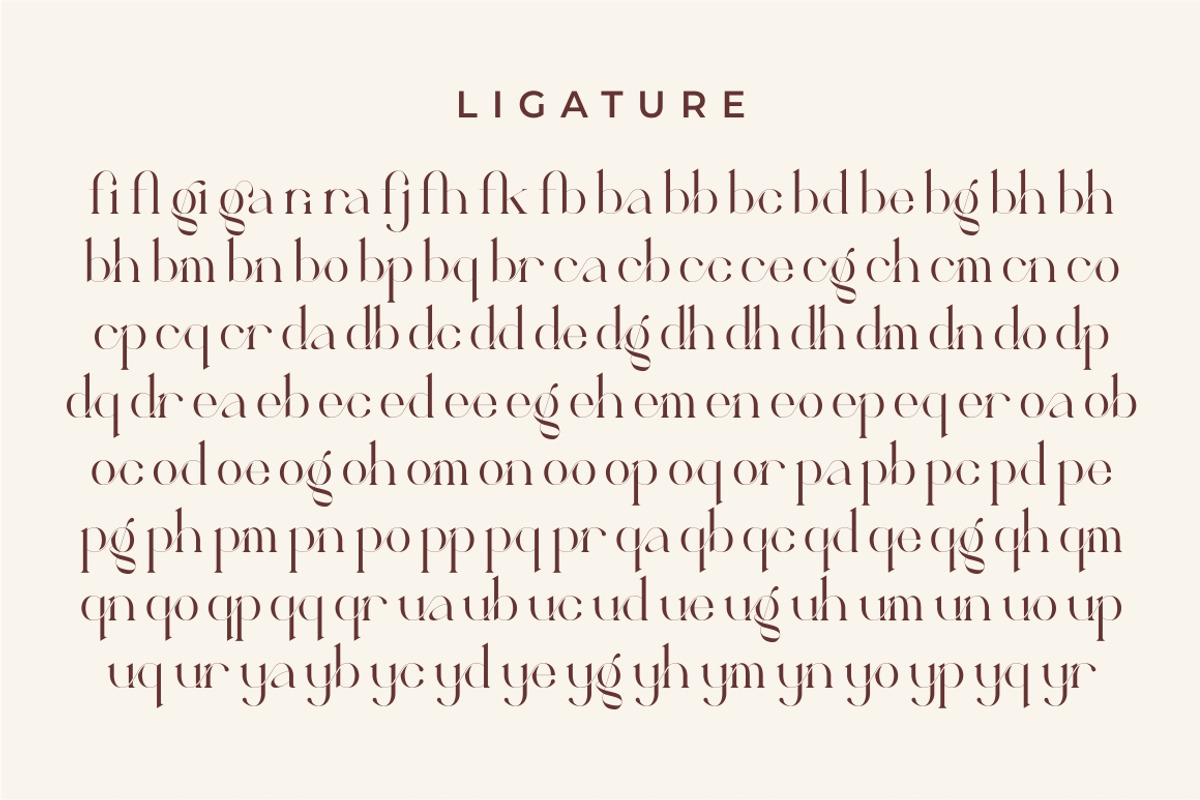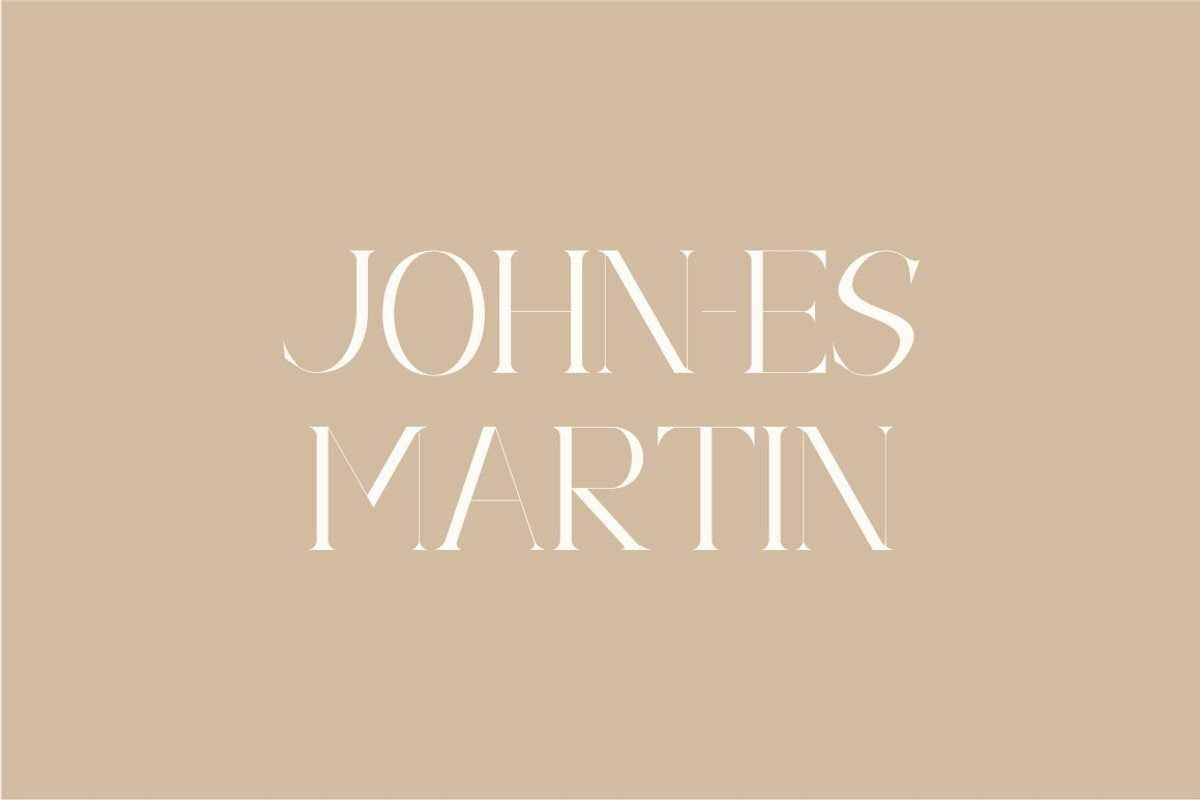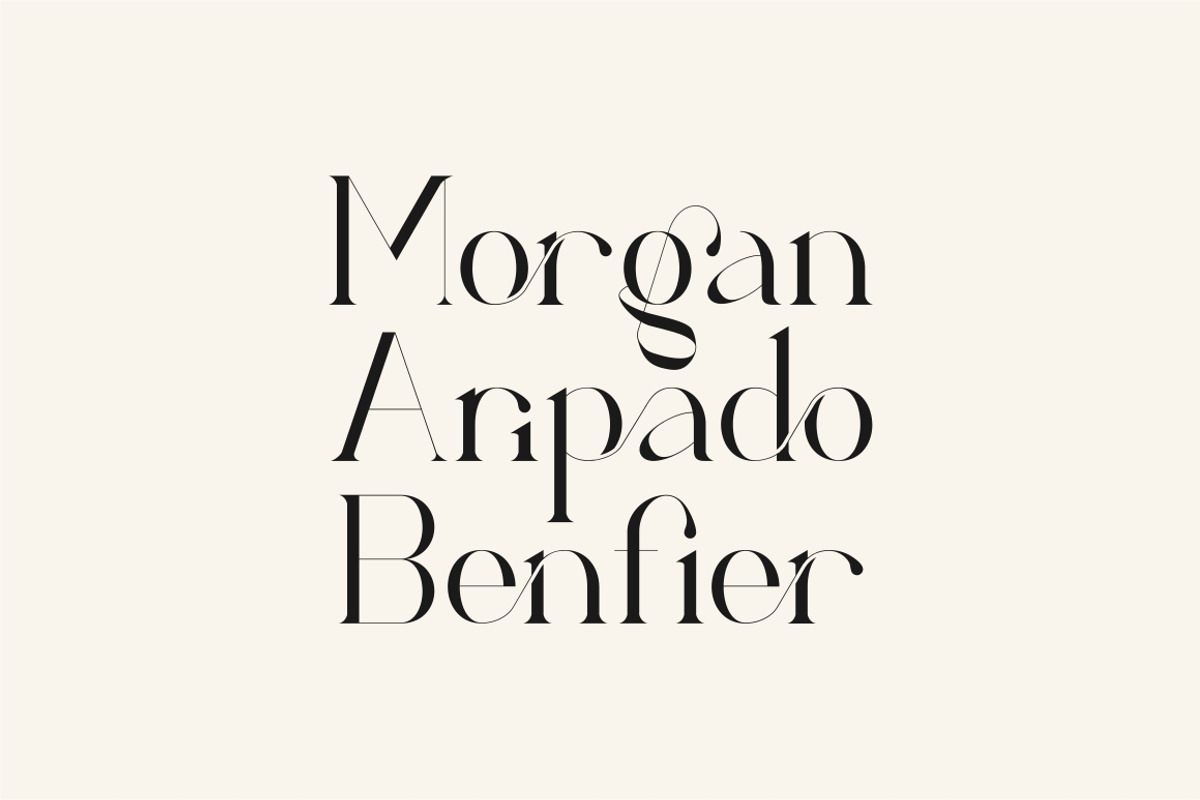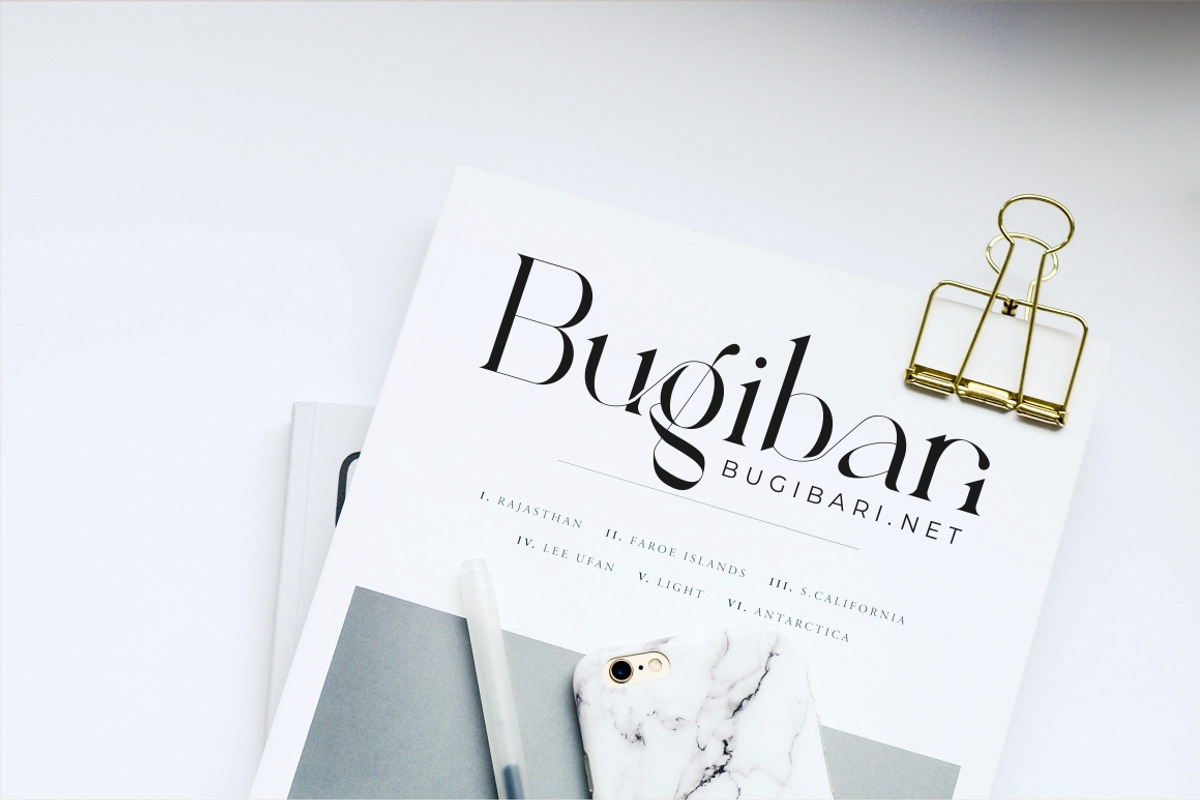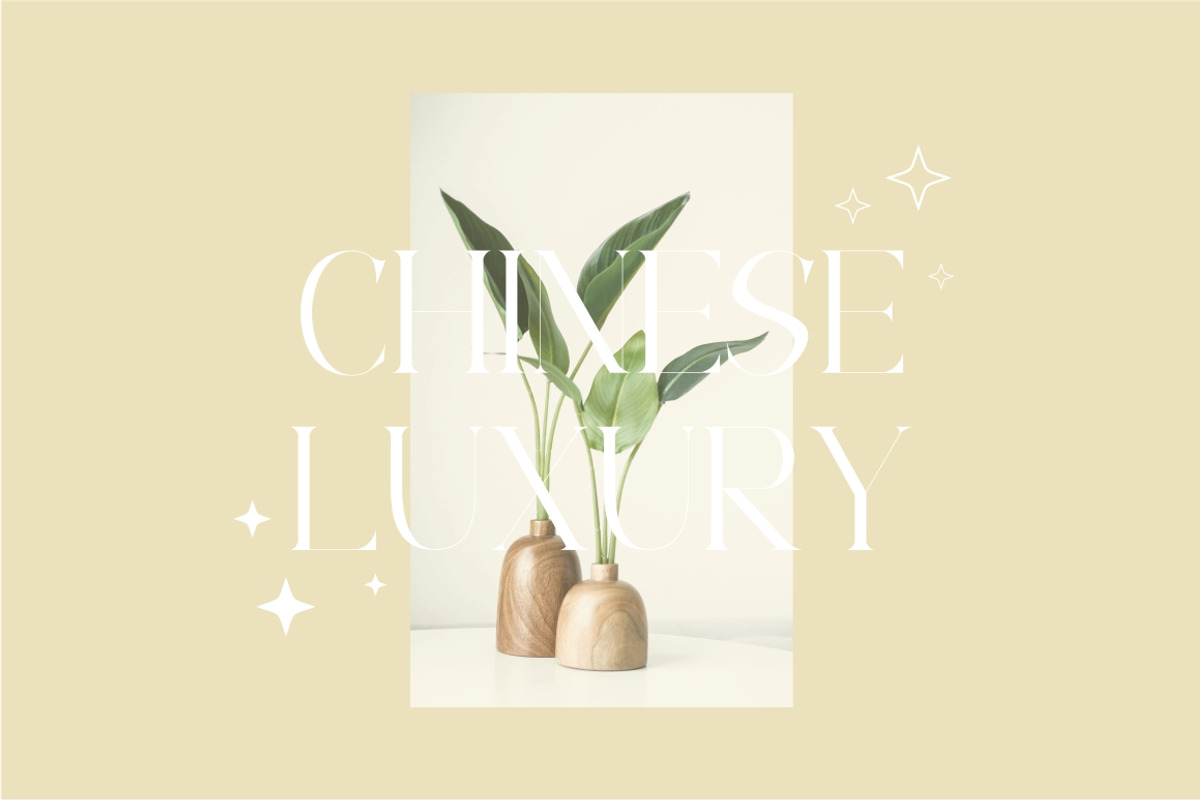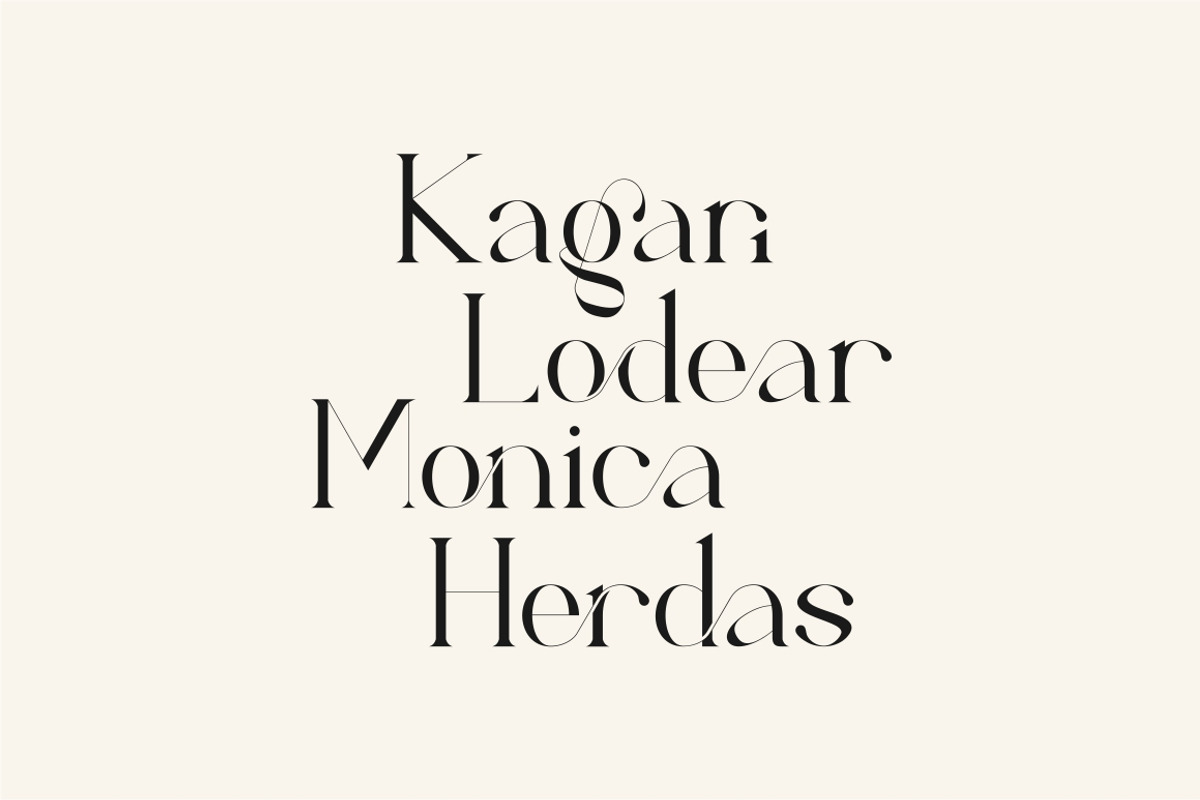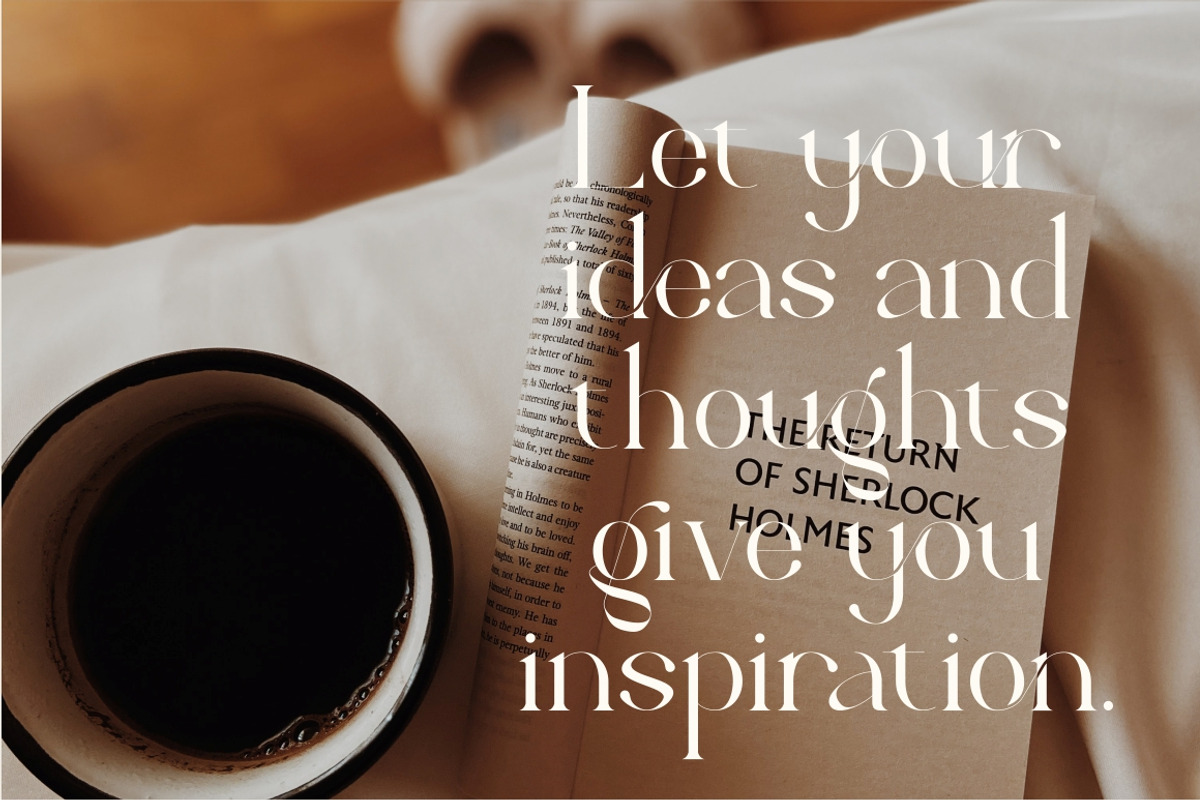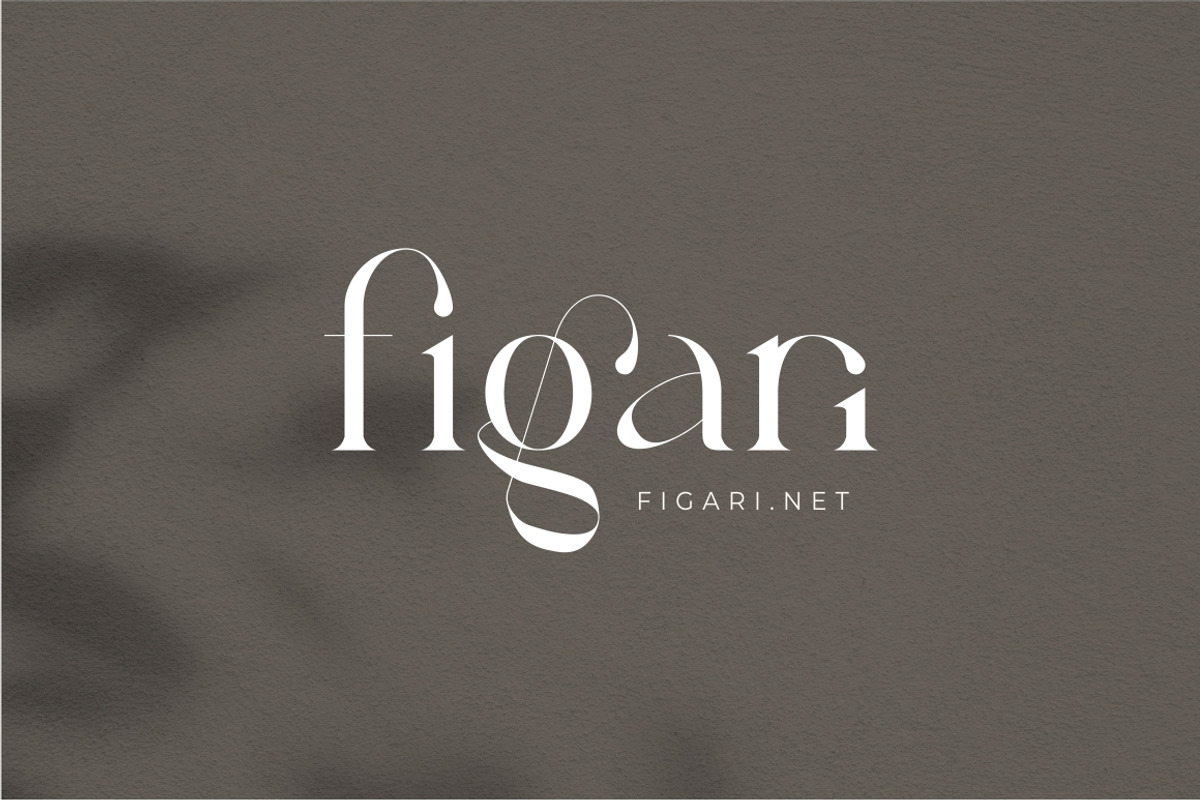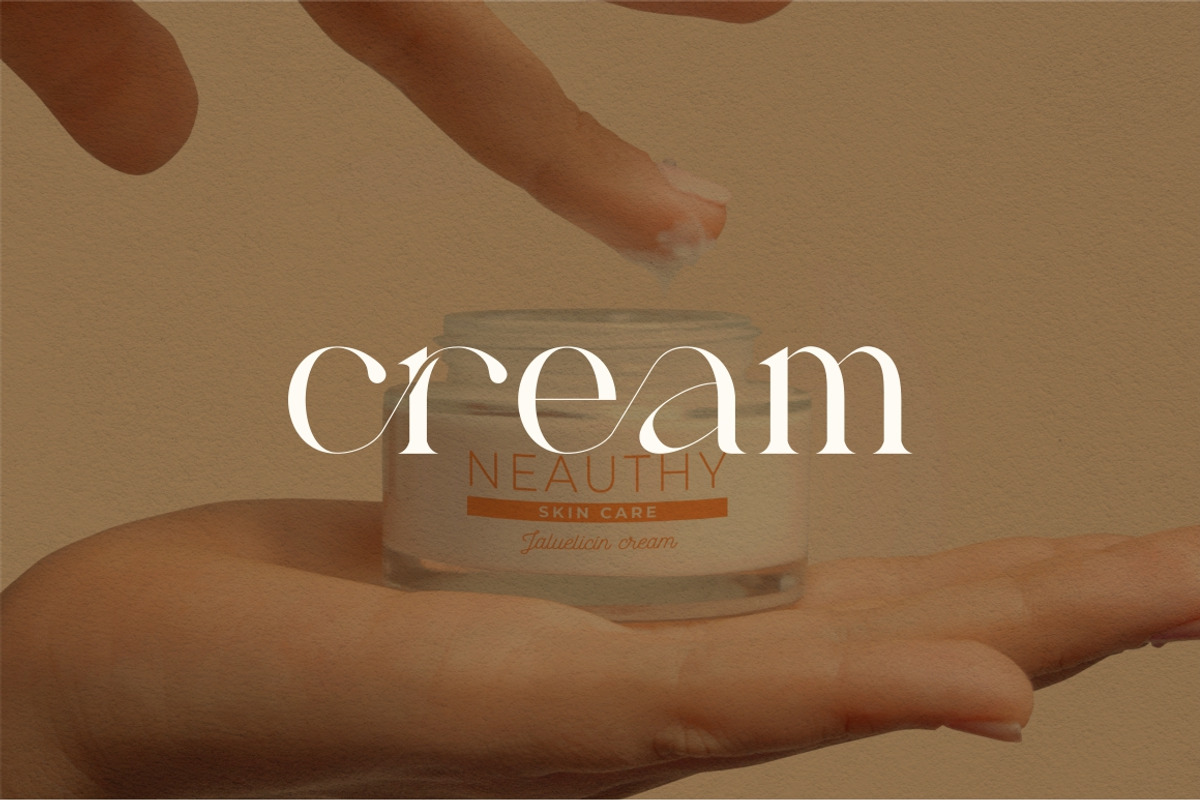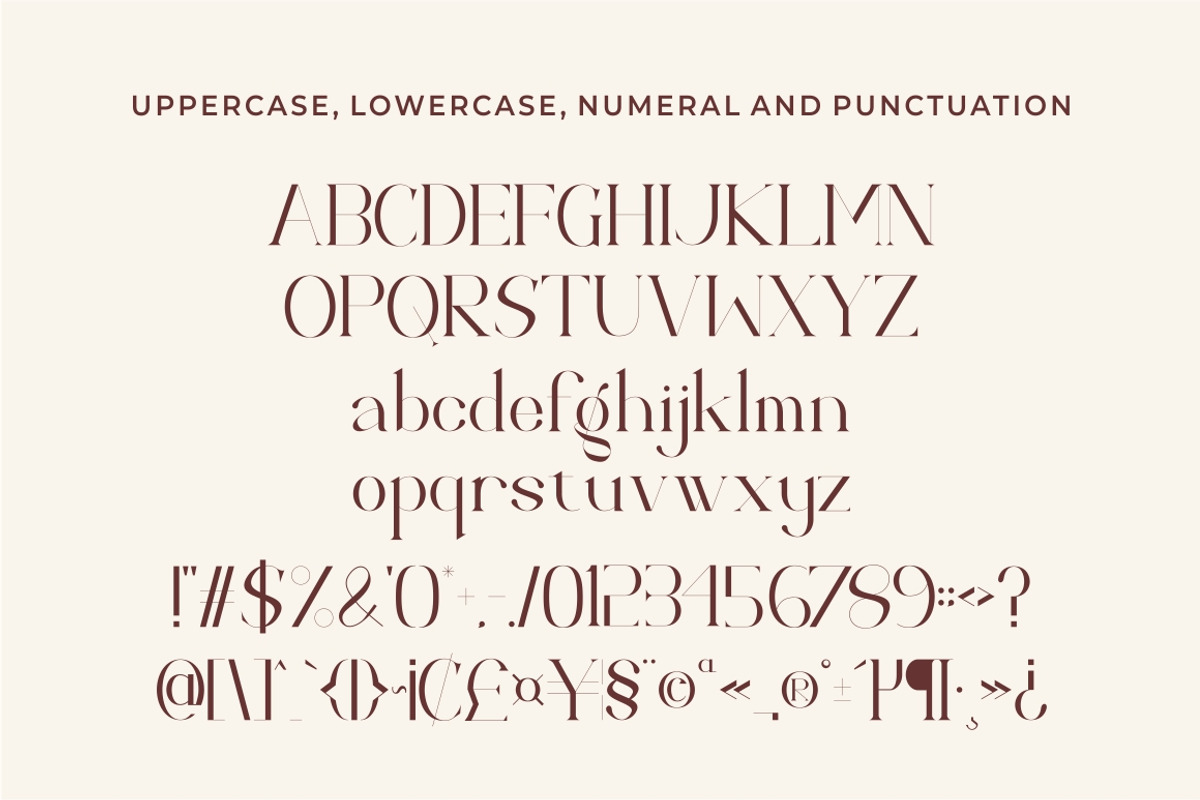
Fragier unique ligature serif font
Hi Ladies and Gentlemen! According to market demand, fonts are more likely to be modern fonts, so I decided to make this serif font that you have in mind. Fragier font is a very beautiful and popular serif font with many ligatures, comes with a modern style to become a market favorite. We keep this font looking elegant, classy, easy to read, stylish, attractive and easy to use. Fragier Font is a great choice for beauty brands, magazines, newspapers, books, brand names, branding, brands, quotes, album covers and other projects. Fragier fonts are here to take your designs to the next level.
Font Features: • Uppercase • Lowercase ligature • Multilingual Support • Numeral and punctuation